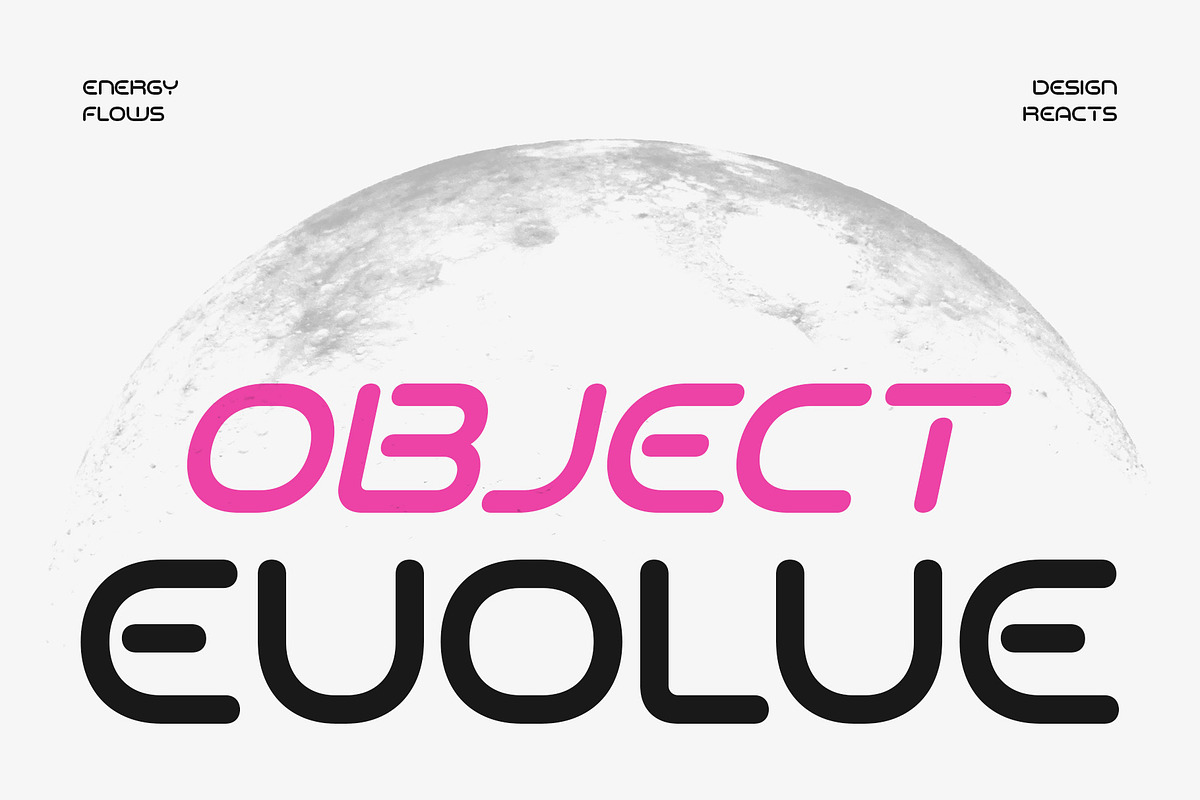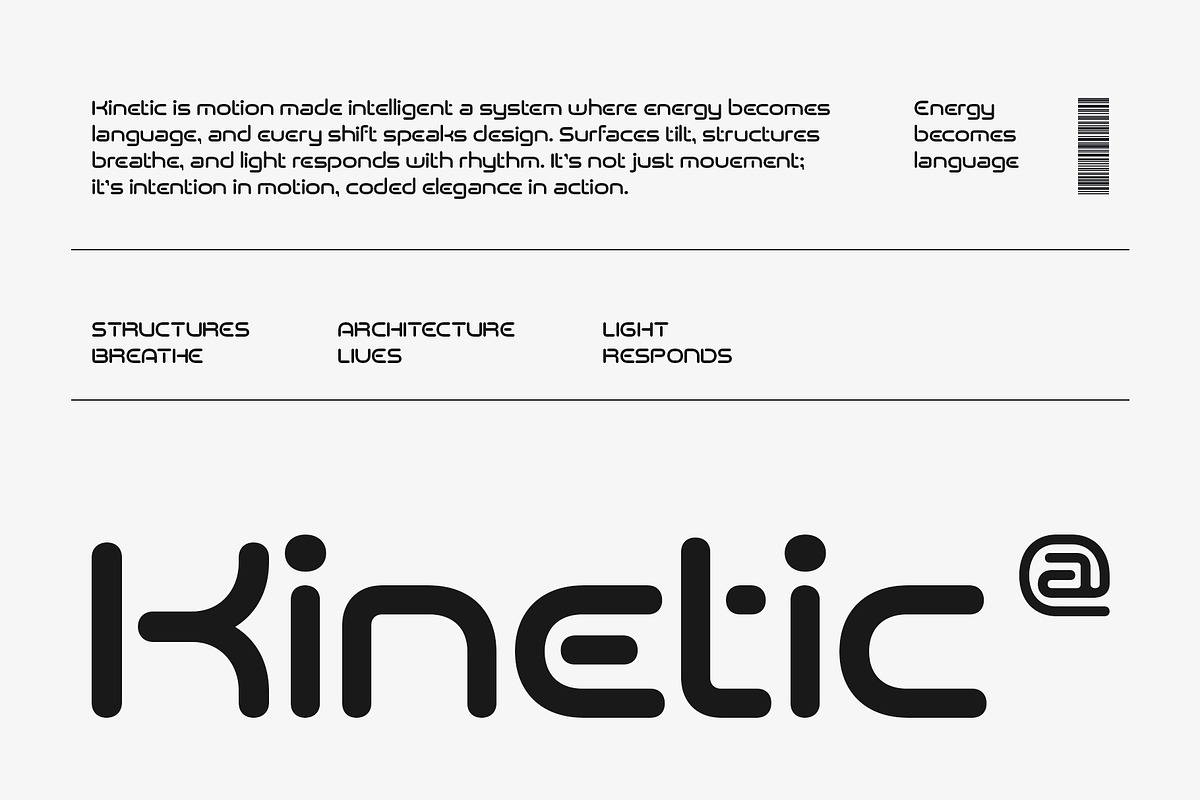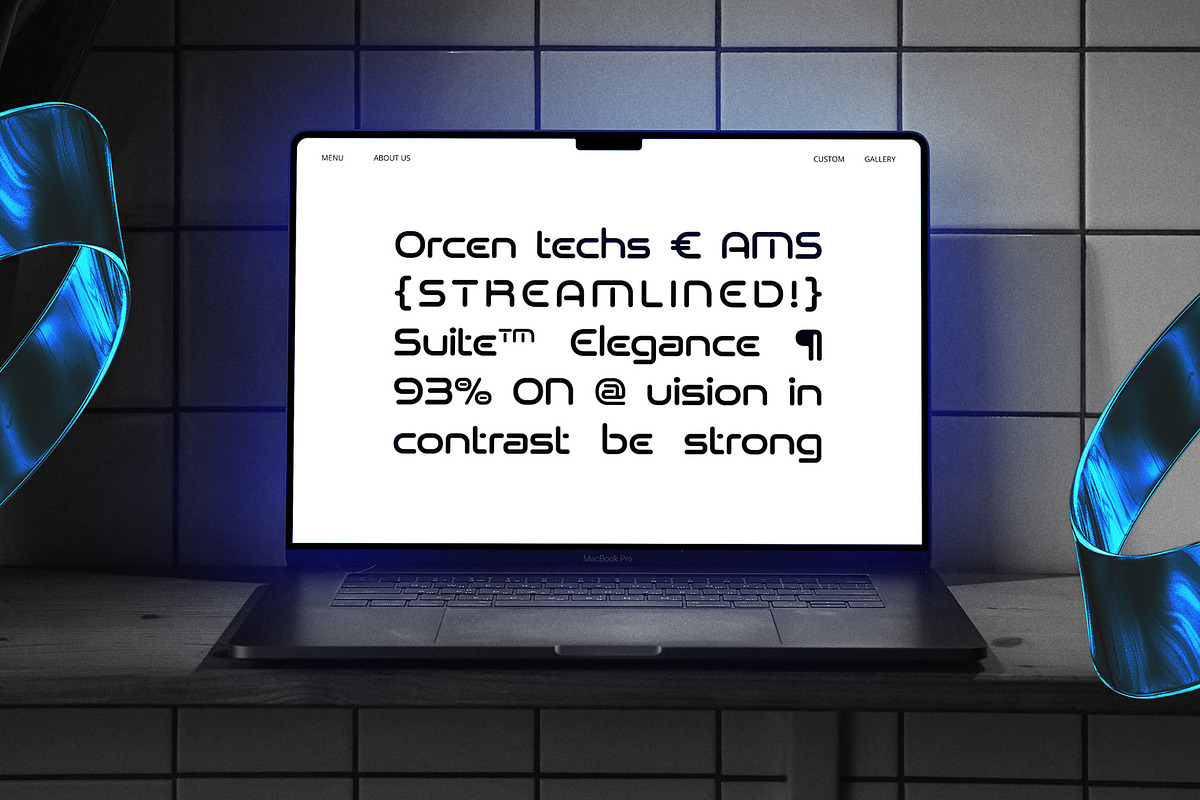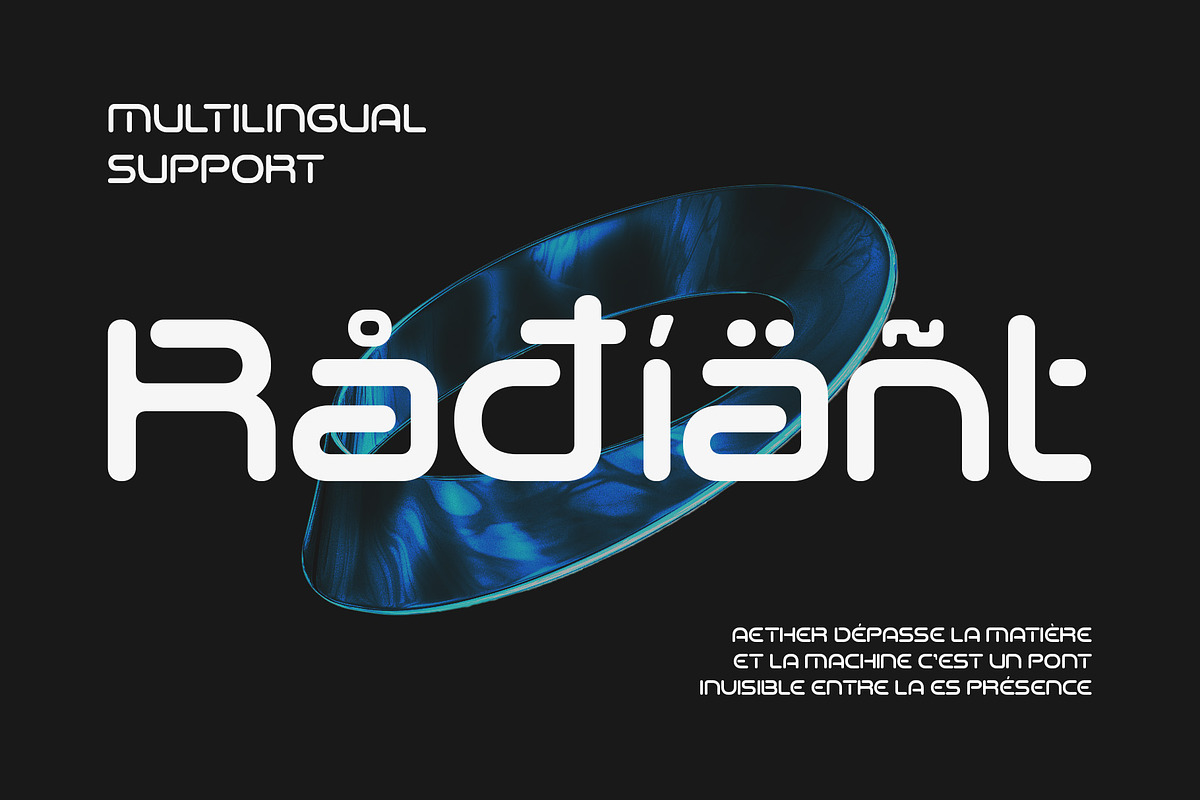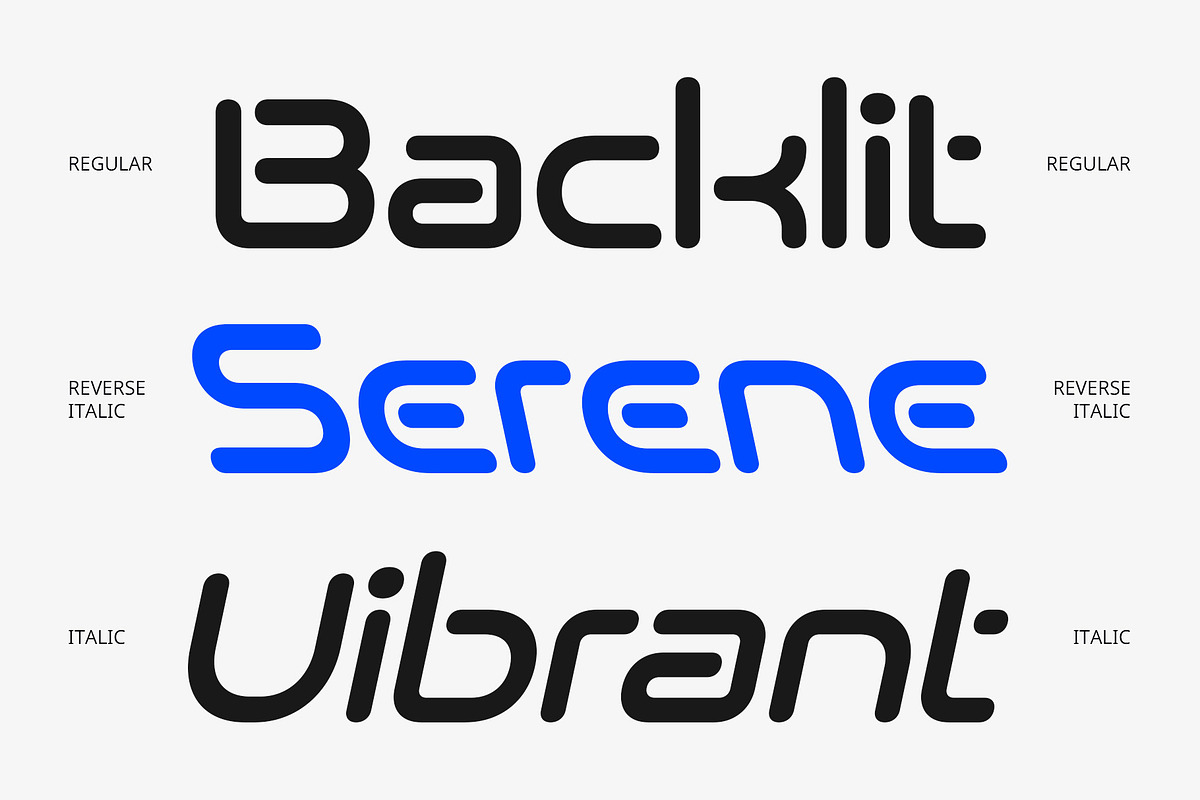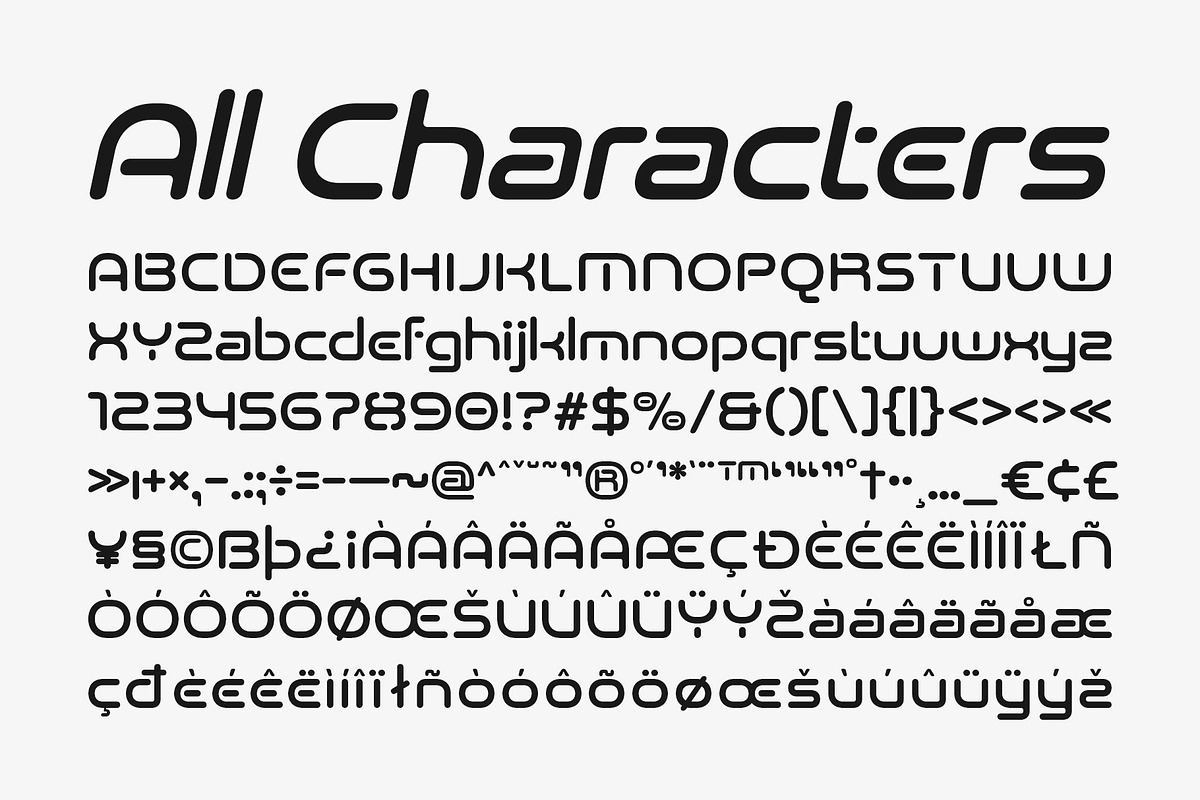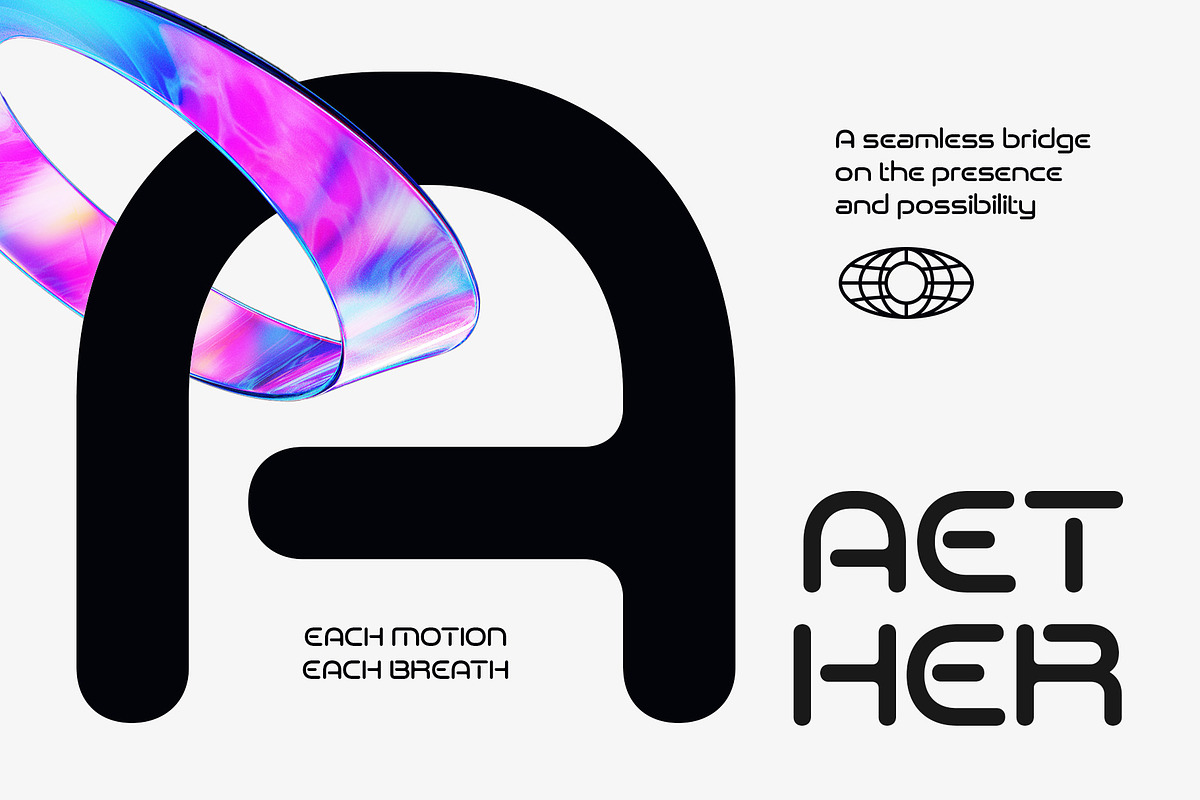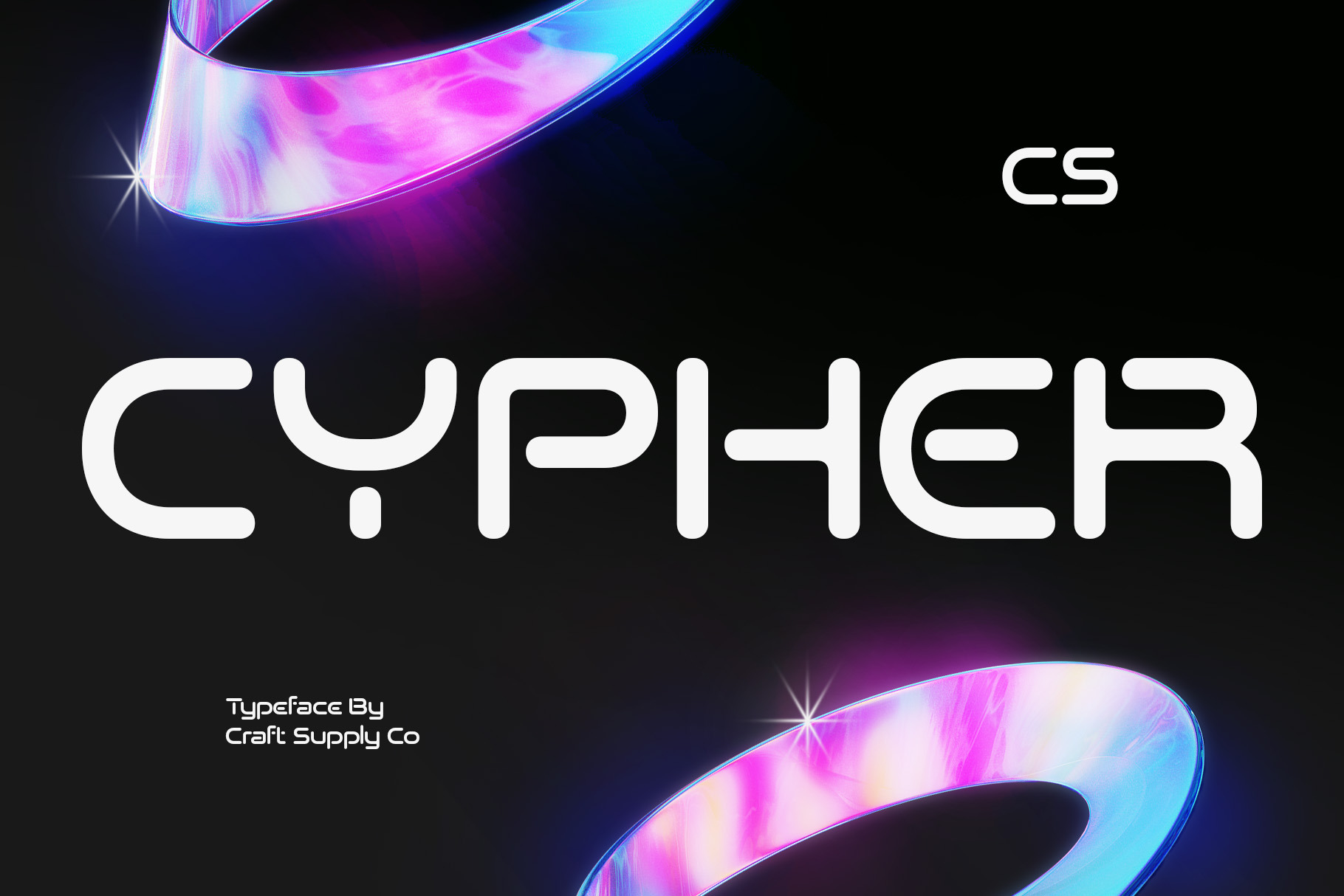
CS Cypher – Futuristic Font
CS Cypher – Futuristic Font: Where Geometry Meets Innovation
Futuristic Display Font with Rounded Geometric Style CS Cypher Font is a modern display typeface that merges geometric precision with soft, rounded edges—creating a sleek, futuristic appearance. It brings a clean and highly stylized look that resonates with digital aesthetics, making it perfect for tech-savvy, future-forward design projects.
Sleek Geometry with a Contemporary Touch Built from simple yet striking forms, CS Cypher balances sharp structure with smooth curves. This geometric and contemporary combination offers a refined visual identity that feels both sophisticated and approachable, ideal for modern branding, creative layouts, and digital design elements.
Optimized for Digital Interfaces and Screens With clear legibility and distinct character shapes, CS Cypher performs excellently in digital environments. Whether used in app interfaces, websites, or futuristic dashboards, the font’s clarity ensures readability without sacrificing style—ideal for engaging user experiences.
Ideal for Tech Branding and Innovation Themes CS Cypher shines in branding projects that center on innovation, technology, or cutting-edge ideas. Its futuristic visual language adds a modern edge to logos, startup identities, product design, and promotional materials aimed at forward-thinking audiences.